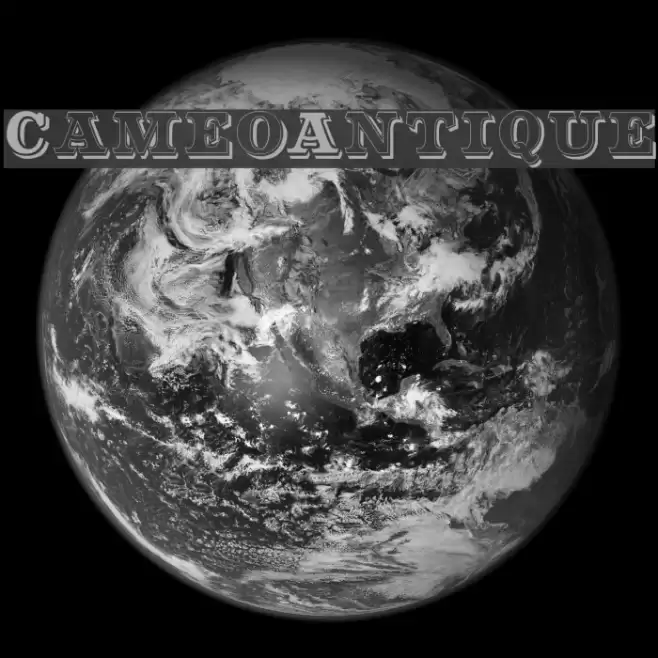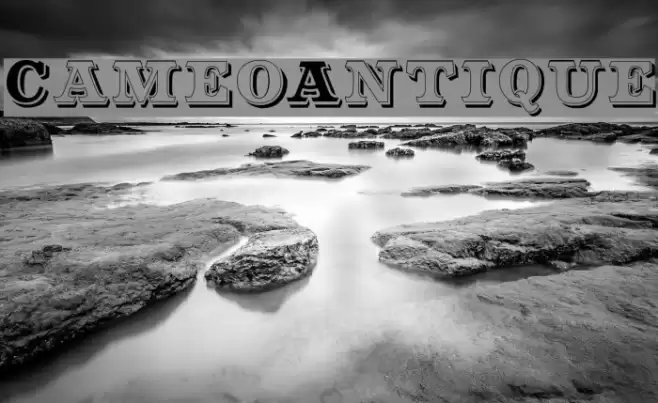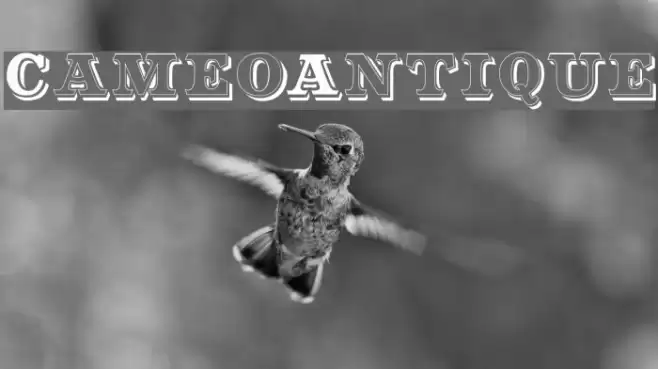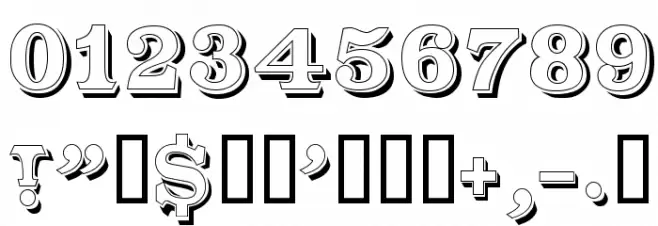
CameoAntique Font
CameoAntique Description
This font features a bold and decorative style with a three-dimensional effect, achieved through the use of shadowing and outlines. The uppercase letters are prominently designed with thick strokes and a distinct outline that adds depth. The numerals and special characters follow the same stylistic approach, maintaining consistency across the character set. The overall appearance is reminiscent of vintage signage or classic poster typography, making it stand out with its strong visual impact.
A bold, decorative font with a vintage, three-dimensional style from Uncategorized fonts.
- Version: CameoAntique is the Outline Shadow version of NightShade. This font was produced by modifying Soft Horizon's NigelSade
- Proposed Projects: Ideal for vintage-themed posters, signage, branding projects, and any design requiring a bold, eye-catching typeface.
- Contrast: High
- Overall Style: Vintage